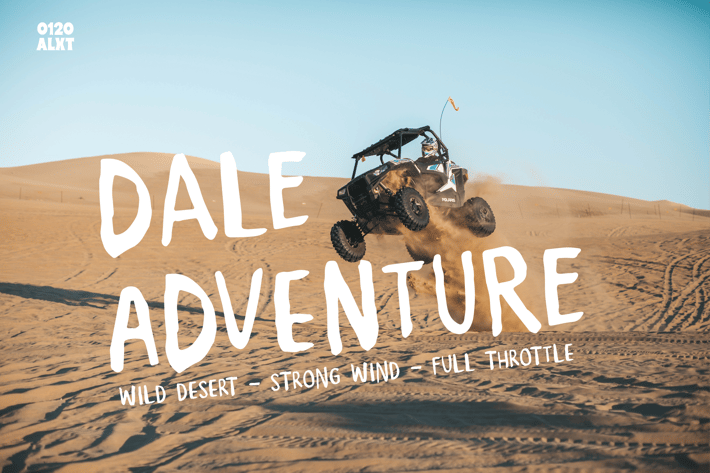
Dale Adventure - Exploration Font
Like its name, Dale Adventure brings a lot of energy to explore the wild.
unwalked path, untouch jungle, you name it. Dale Adventure is more than ready to go there.
All caps with variations between upper and lowercase, will make your writing looks even more natural.
not mentioning when two same letters stand next to each other...the magic happen.
Go explore...enjoy your quest.